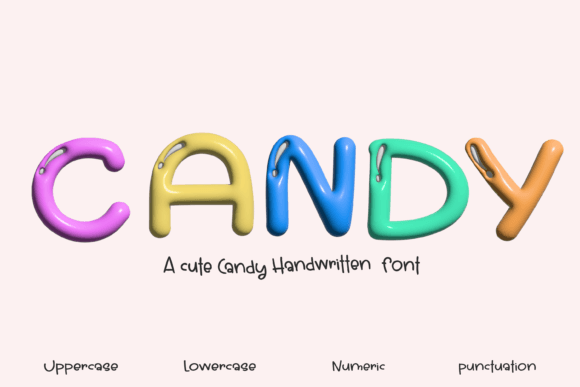
The Sweetest Font in Town: A Comprehensive Guide to Candy Font
My Honest Review of Candy Font
Candy Font has become a staple in my design toolkit, and here’s why:
- ✨ Cute and Fun: Candy Font is exactly what it promises – a cute and fun font that adds a playful touch to any design.
- ✅ Versatile: It can be used for a wide range of projects, from party invitations to social media graphics, and even branding.
- 🎉 Colorful and Bold: The font comes in a variety of colors and is bold enough to grab attention.
However, no font is perfect, and Candy Font has a few quirks:
- 🤔 Limited use in formal designs: Due to its playful nature, Candy Font might not be the best fit for formal or professional designs.
- ⚠️ Glyph limitations: While the font has a range of glyphs, it might not have every special character you need.
The Designer Inspiration Behind Candy Font
Candy Font was designed with the intention of creating a playful and fun typeface that would bring joy to designs. The designer, inspired by childhood memories of candy and sweets, aimed to craft a font that would evoke a sense of whimsy and delight.
| Font Name | Candy Font |
| What type of designs is Candy Font best suited for? | Candy Font is perfect for creative and playful designs, such as party invitations, social media graphics, and branding for kids or family-friendly businesses. |